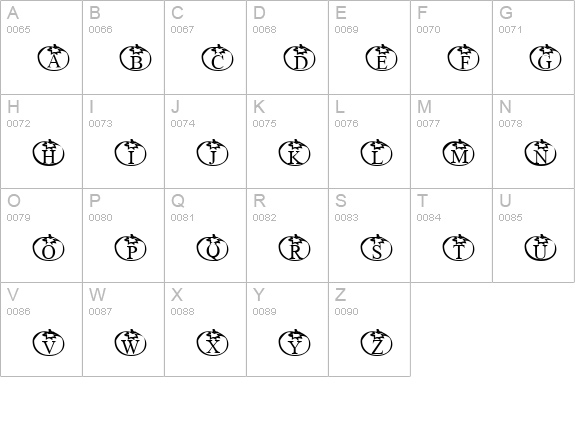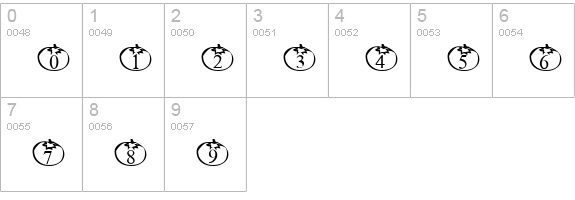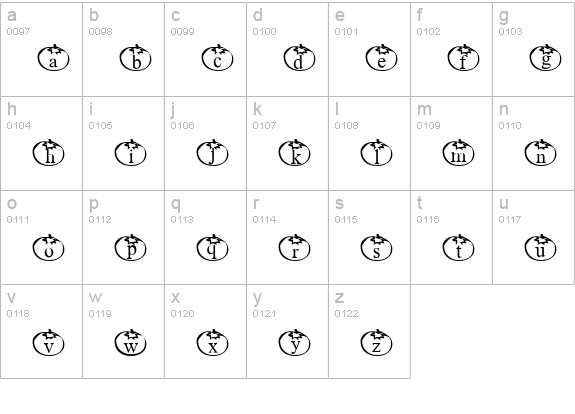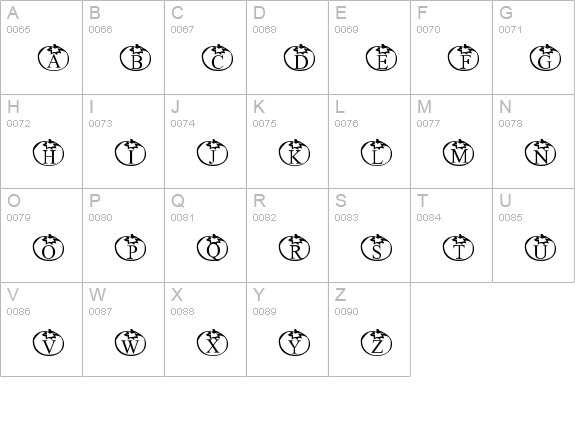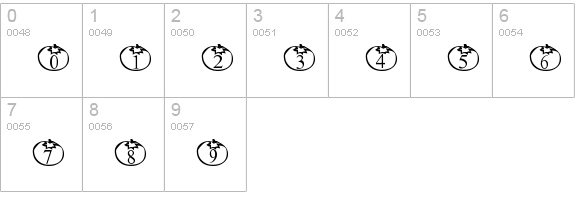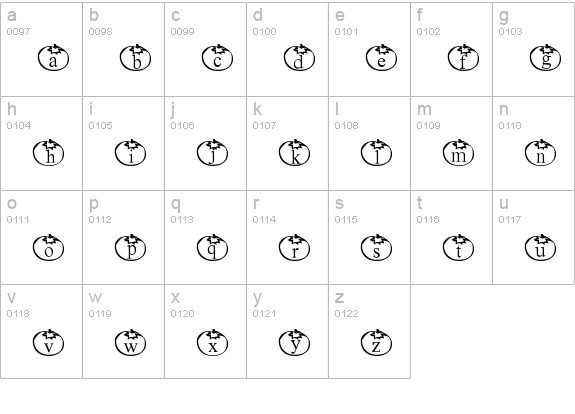
Tomate Font Details
Introducing Tomate, a stunning and versatile font that is guaranteed to add a touch of elegance and character to any design project. With its unique combination of modern and classic elements, Tomate effortlessly captures attention and conveys a sense of sophistication. This incredible font boasts a plethora of carefully crafted letterforms, each meticulously designed to ensure optimal legibility and visual impact. From its delicate curves to its strong and confident strokes, Tomate exudes a timeless appeal that is sure to captivate both designers and readers alike. But what sets Tomate apart is not just its impeccable design, but also its accessibility. This extraordinary font is available to you completely free of charge, allowing you to elevate your creative endeavors without any limitations. Simply head over to FontsMarket.com, where you can easily and conveniently download Tomate and embark on a journey of artistic expression. Whether you are working on a logo, a website, a poster, or any other design project, Tomate is the ideal choice to make a lasting impression. Its versatility knows no bounds, effortlessly adapting to any style or theme, from minimalist to bold and extravagant. So why wait? Unleash your creativity and discover the endless possibilities that Tomate has to offer. Download this remarkable font today, free of charge, and let your designs flourish like never before.